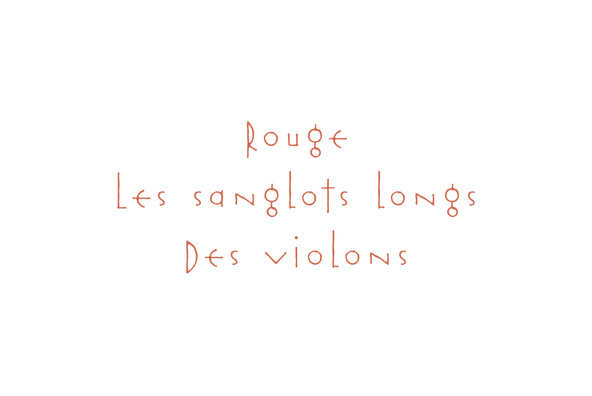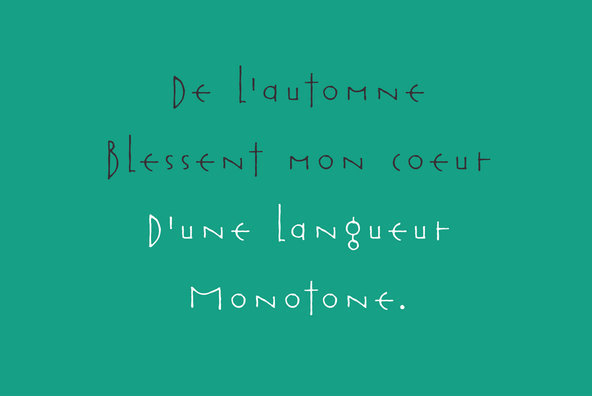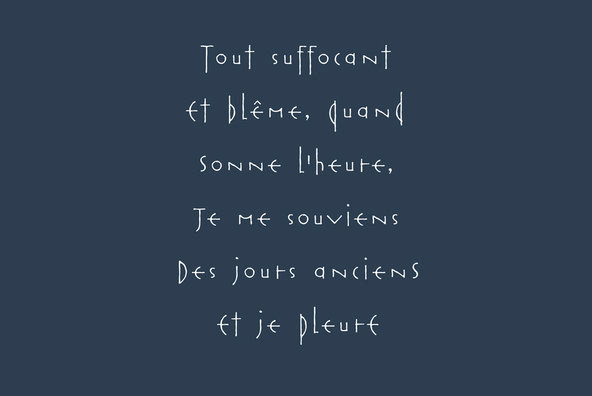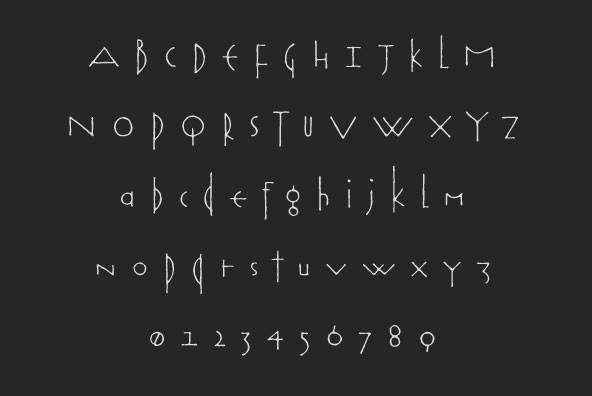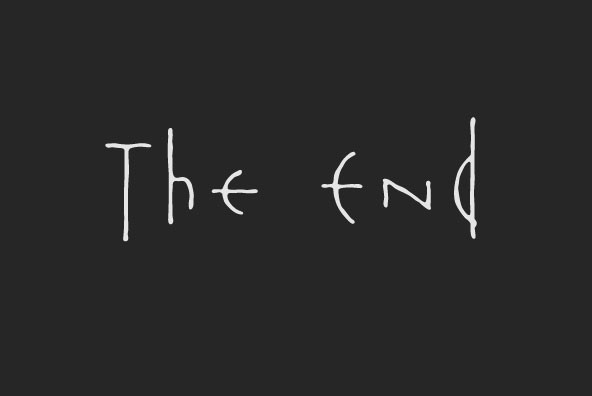
Foundry: Ryoichi Tsunekawa
Rouge is a creative font that carries a very pre-historic and old world feel. The design of Rouge also presents a sort of mathematic and organic visual theme.